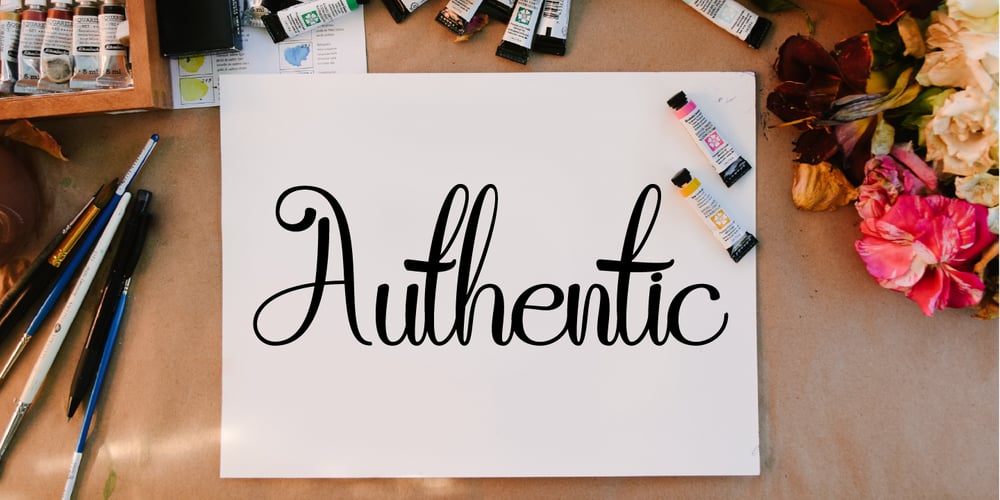
Athernal Font Family was designed by Herya Wildan and published by Typerline. Athernal contains 1 styles and family package options. Athernal is elegant script typeface. This font also based from a brushpen lettering. Beautiful and unique with authentic charm, add a handwritten and elegant feel to any design project. This is perfect for branding, logos, brochures, business cards, wedding stationary, invitations, and every other design which needs a handwritten and elegant feel.